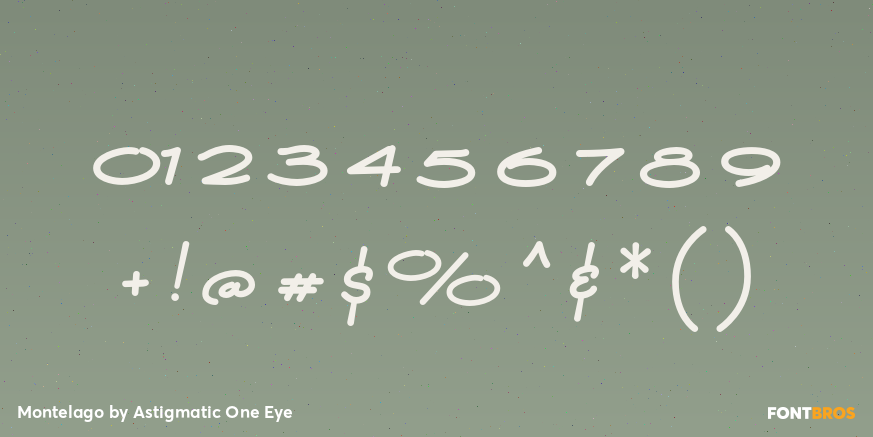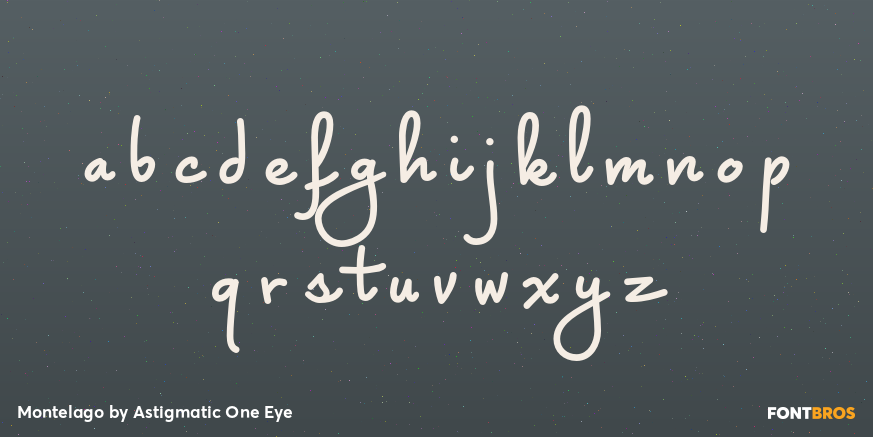
Montelago
Font Family by Astigmatic One Eye
Inspired by logotype of the Mirage Resort and Casino in Las Vegas comes the Montelago font, complete with a restrained capitals version, and a flare version with true to form lengthy capitals. Definitely a typeface with capitals to be used in moderation!